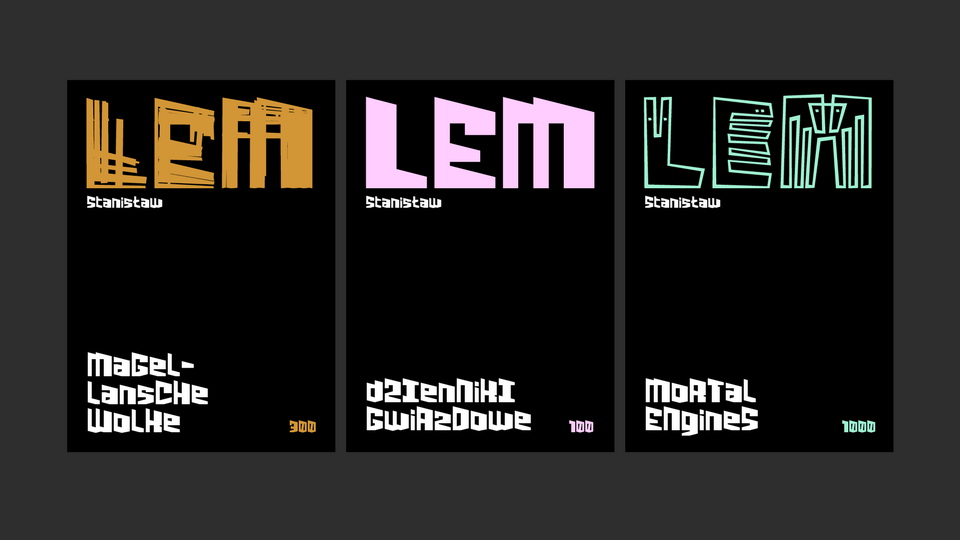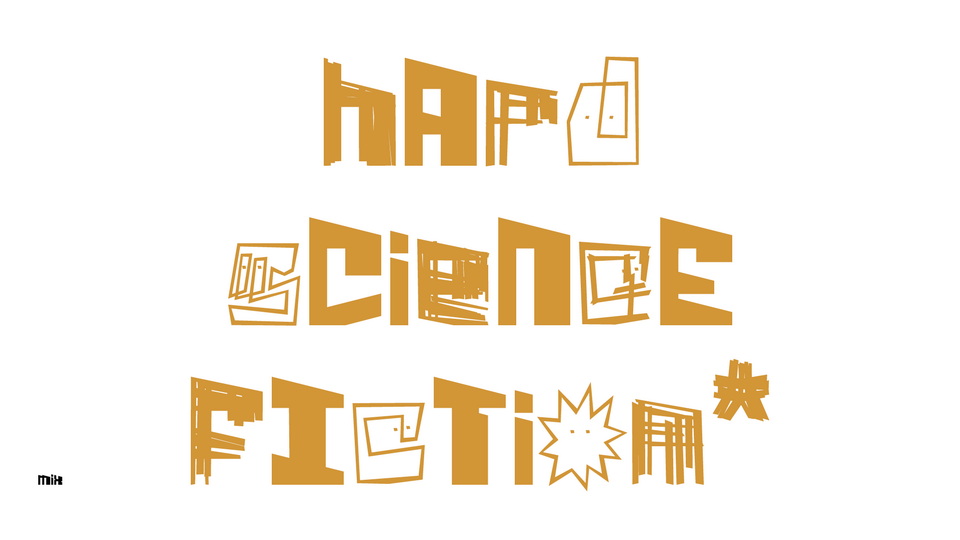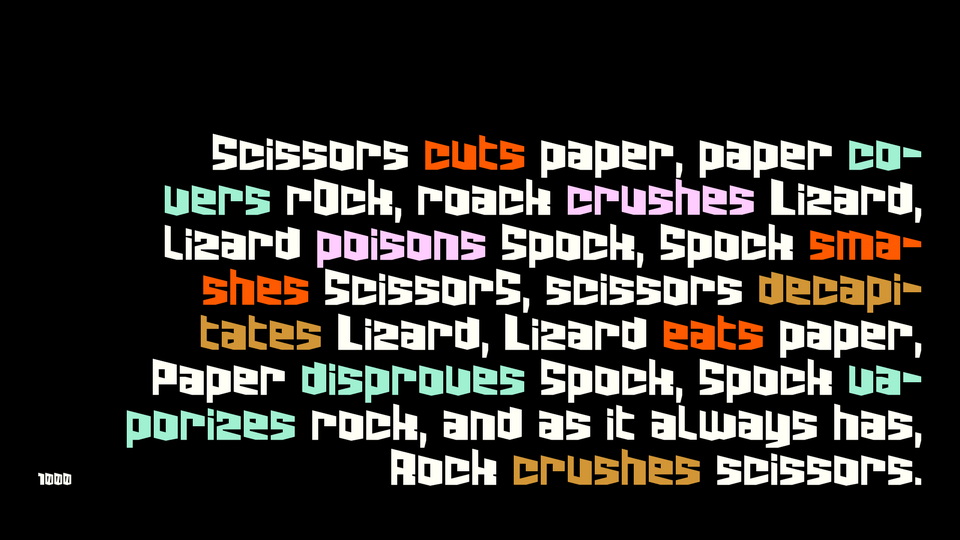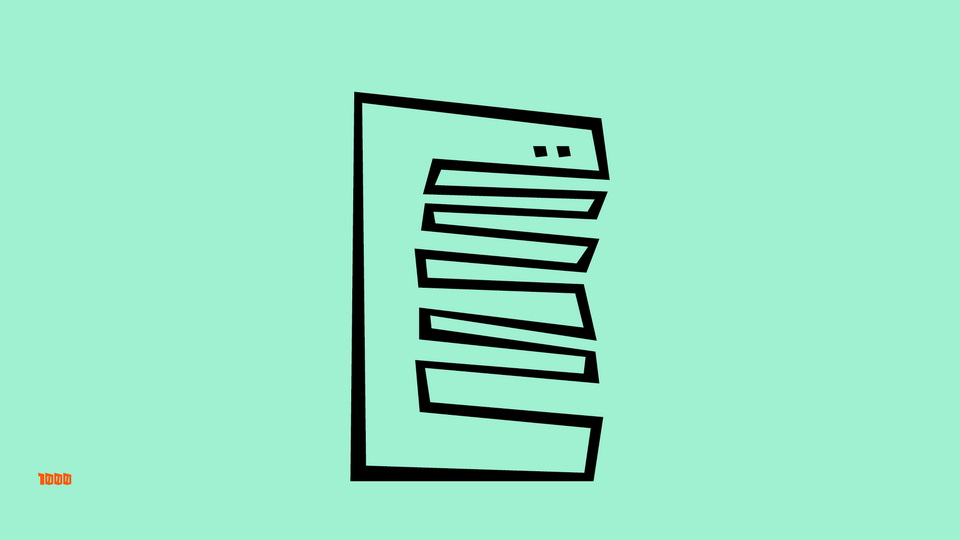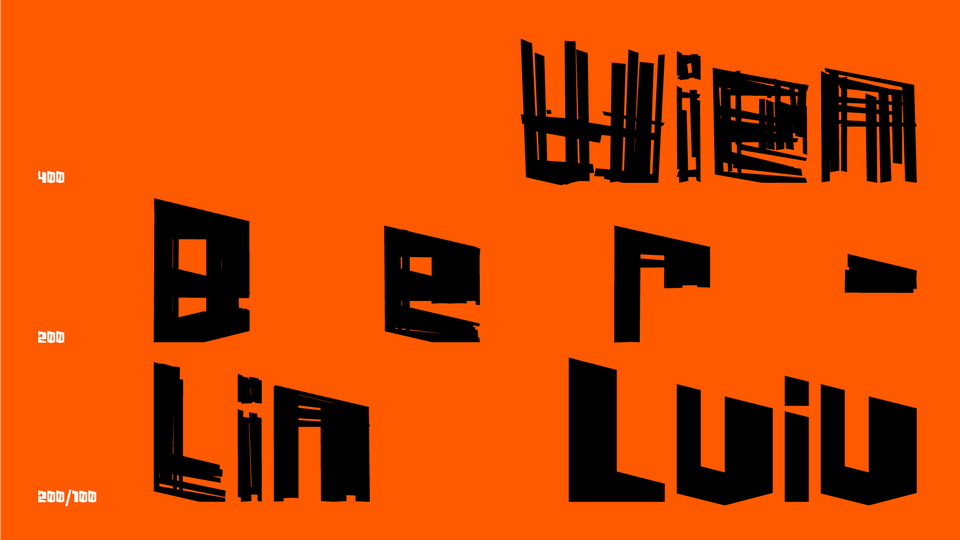
Filidron typeface is inspired by the heavy typography on the covers of Lem’s books and movie posters based on his works. After the transformation, the heavy typeface, which already has some features of a being, becomes a robot or another hero of Lem’s books, inspired by the drawings of the writer himself, illustrator Daniel Mróz and the covers of Lem’s books by other artists. The typeface is dedicated to graphic designers (as well as designers of typefaces used by them in their projects) and illustrators who, in the great writer’s heyday, depicted his prose with lettering or illustrations.
The typeface name comes from a story in „The Cyberiad”. Filidron was one of the things, that the machine constructed by Trurl had removed. We don’t know what Filidron actually was, maybe it looked like one of my letters (-: